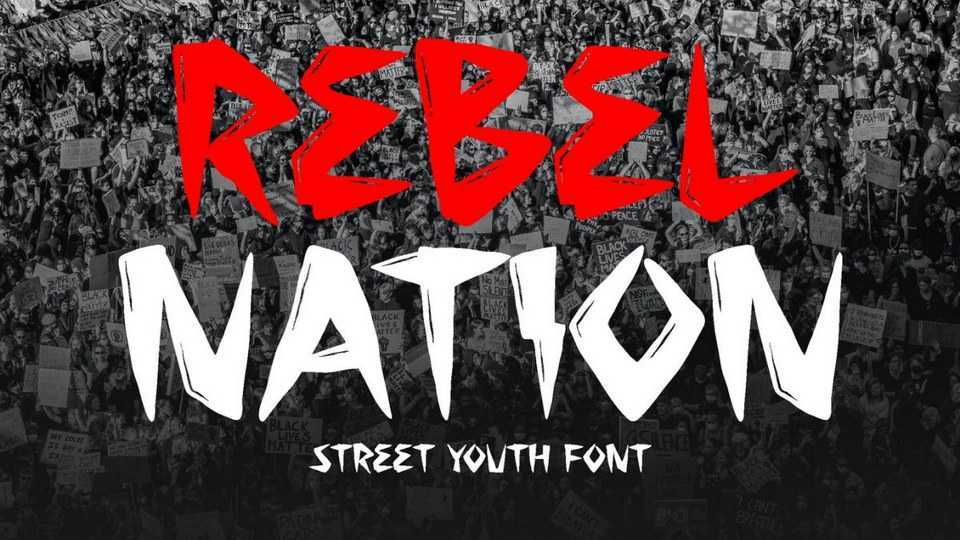
Download Rebel Nation font, a bold typeface with the shape resemblance the aggressiveness and the abundant energy of youth life. Rebel Nation font speaks in strong languages, bursting with rage, and empowering for all teenager and the young generation.